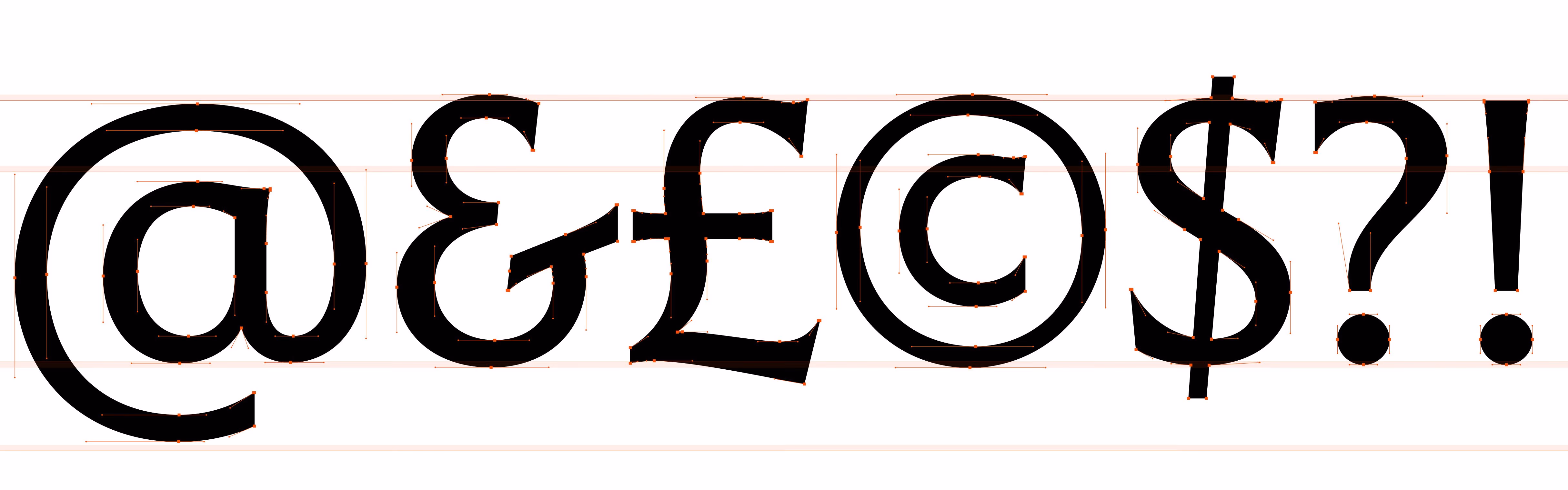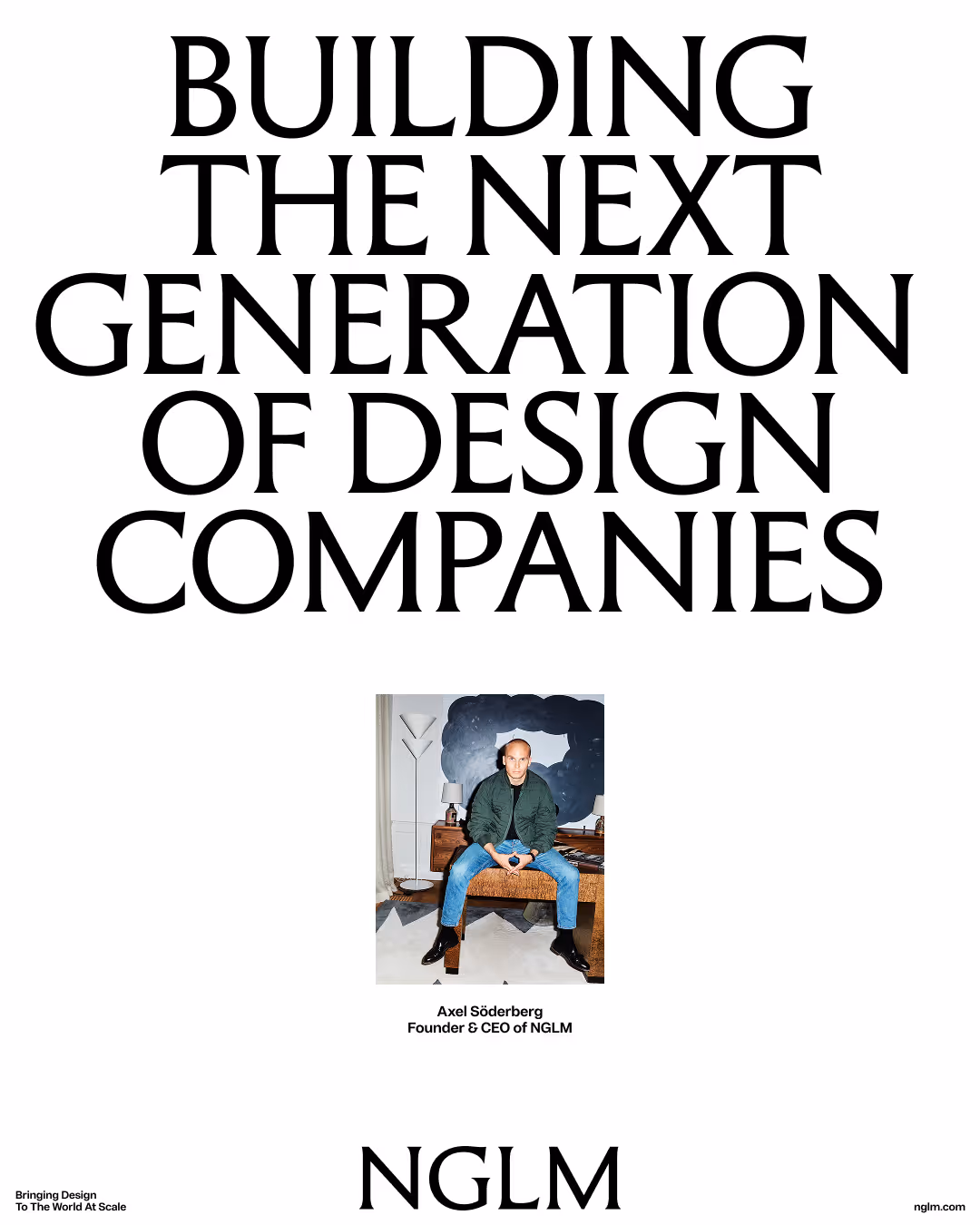
GD Trio – Roman Capitals, Reconsidered.
The Trajan Inscription, carved into the base of Trajan's Column in 113 AD, remains the cornerstone of Western typography. These Roman square capitals (Capitalis Monumentalis) have influenced lettering for two millennia, evolving through Renaissance geometric systems to Carol Twombly's 1989 Adobe Trajan. GD Trio builds on this legacy with a contemporary reinterpretation of the Roman capital. Rather than a mere revival, this typeface draws on direct studies of the original inscription and preceding Greek stonework to optimize proportions and serifs for modern requirements. GD Trio prioritizes clarity and permanence, offering precision without imitation.
The family includes seven weights, ranging from Light to Black. While the Black weight is an unconventional departure from classical norms, its inclusion adds a bold, experimental dimension to the collection. GD Trio resolves ancient forms for the modern era, a typeface rooted in history but refined for today.
We initially developed this typeface for the visual identity of NGLM, a collection of design-oriented companies spanning legacy brands and new innovators, united by one ambition: to become world leaders in design. For the full case on NGLM's use of GD Trio (shown in one weight, GD Trio Medium), take a look at our case here.
Designer(s)
Marcus Gärde
Christoffer Granström
Anders Wikström
Style
Flare Serif
Features
Oldstyle Numerbers
Proportional Numbers
Standard Ligatures
Rare Ligatures
Case-Sensitive Forms